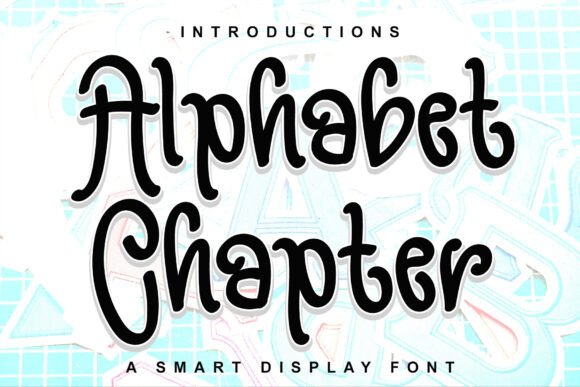
The Magic of Alphabet Chapter Font: A Designer’s Delight
I still remember the time I was working on a project for a client who wanted a font that was both elegant and playful. I had spent hours scouring the internet for the perfect one, but nothing seemed to fit the bill. That was until I stumbled upon Alphabet Chapter Font. ✨ It was love at first sight! The distinct and well-rounded letters immediately caught my attention, and I knew I had found the perfect fit for my project.
An Honest Review of Alphabet Chapter Font
- ✨ Beautifully crafted letters: Each letter is meticulously designed to be both unique and cohesive, making it a joy to work with.
- ✅ Versatility: Alphabet Chapter Font is incredibly versatile, making it suitable for a wide range of design projects, from branding and advertising to crafting and DIY projects.
- 💫 Elegant and playful: The font’s elegant and playful style makes it perfect for designs that require a touch of sophistication and whimsy.
While Alphabet Chapter Font is an amazing font, there are a few quirks to be aware of: ⚠️
- 🤔 Limited availability of certain characters: Some users have reported that certain characters, such as ligatures, are not readily available.
- ⚠️ Requires careful kerning: As with any handwritten font, Alphabet Chapter Font requires careful kerning to ensure that the letters flow smoothly.
The Backstory of Alphabet Chapter Font
Alphabet Chapter Font was designed by a team of talented typographers who wanted to create a font that was both beautiful and versatile. The font’s unique design is inspired by the art of handwriting, with each letter carefully crafted to be both elegant and playful. 📝
| Font Name | Alphabet Chapter Font |
| Author | 21Design |
Q: What is Alphabet Chapter Font?
A: Alphabet Chapter Font is a beautiful handwritten font that’s perfect for designs that require a touch of elegance and playfulness.
Q: Is Alphabet Chapter Font easy to read?
A: Yes, Alphabet Chapter Font is designed to be easy to read, making it perfect for designs that require a clear and legible font.